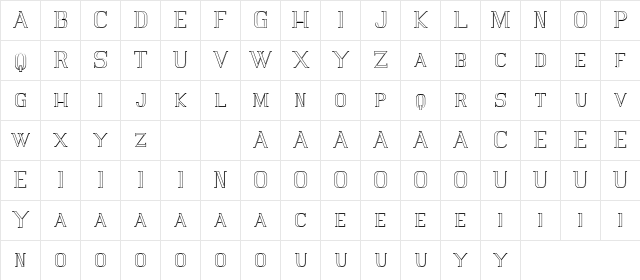
Vlorens Flower DEMO Outline
| Style | Outline |
| Foundry | edric studio |
| Designer | Aghnia + Yasri |
Design Context for Vlorens Flower DEMO Typeface
Vlorens Flower DEMO brings ornamental detail and strong personality to headlines and identities, where visual impact matters more than quiet functionality.